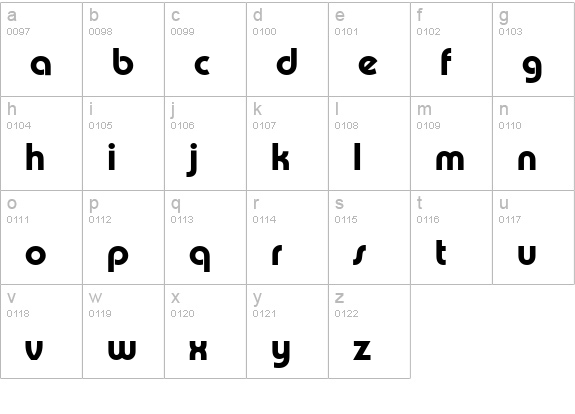
Puente-Medium-Regular is a balanced, medium-weight variant in the Puente typeface family \xE2\x80\x94 well suited to sub-headlines, navigation, and balanced editorial work.
Puente-Medium-Regular is a versatile and elegant font that offers a perfect balance between sophistication and readability. Its clean lines and modern design make it suitable for a wide range of projects, from branding to editorial design. This font exudes a sense of professionalism and class, making it a popular choice for designers looking to elevate their work. And the best part? Puente-Medium-Regular is available for free download at FontsMarket.com, allowing you to enhance your projects without breaking the bank. Don't miss out on this incredible opportunity to add a touch of style and finesse to your designs with Puente-Medium-Regular.